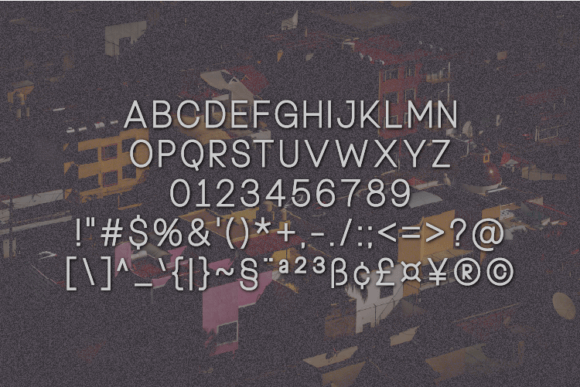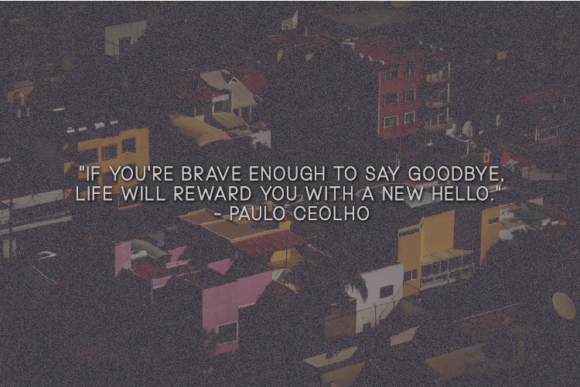
Introduction to Dolfind Houses Font
Dolfind Houses is a stunning sans serif to complement every project you’re working on.
Use it to create beautiful headings, gorgeous invitations, stunning logos, and so much more Perfect for displays, headers, invitations, save-the-dates, weddings, and so much more.
Key Features of Dolfind Houses Font
Why Choose Dolfind Houses Font?
Dolfind Houses Font offers exceptional quality and versatility, making it a valuable addition to your design toolkit. Whether you’re creating for personal projects or commercial use, Dolfind Houses Font delivers professional results.